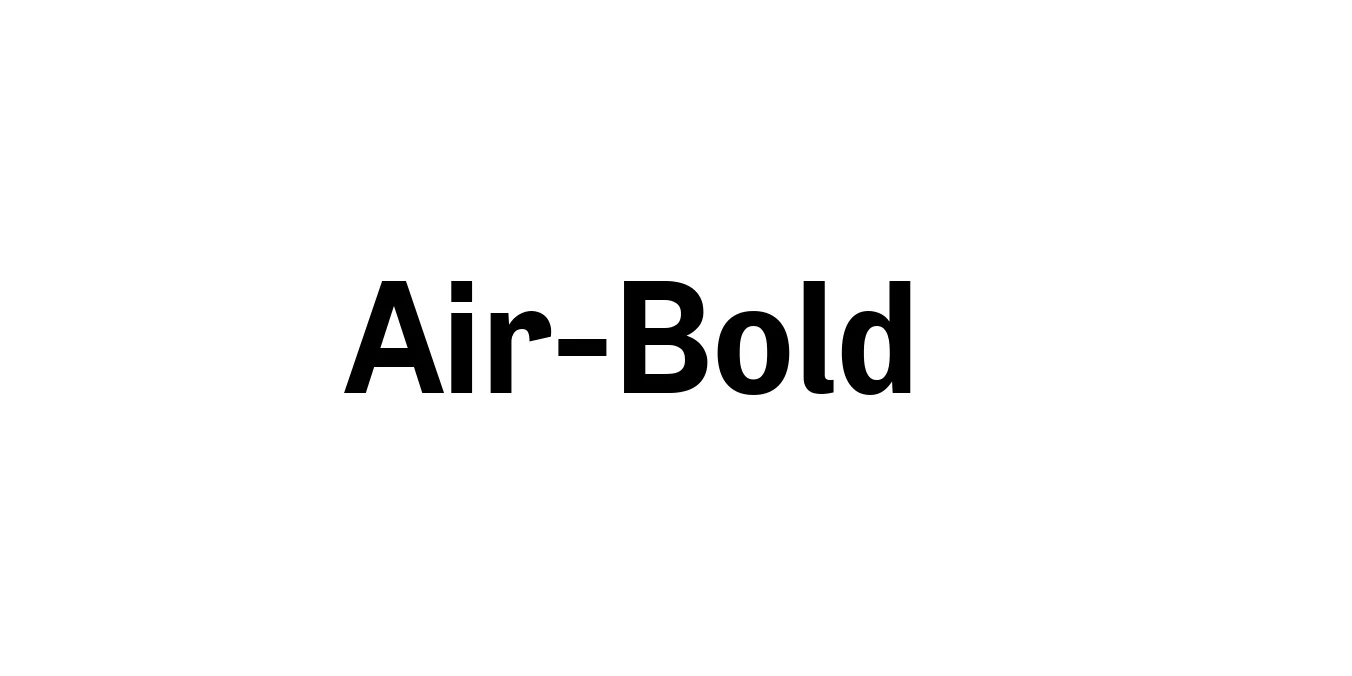
Air-Bold ☞
Designed by Neil Summerour (Positype)
Air-Bold is a masterfully crafted geometric sans-serif typeface that prioritizes clarity, balance, and modern aesthetics. Designed by Neil Summerour of Positype, this font is part of a larger family developed to provide a sophisticated alternative to traditional grotesque styles. Its bold weight emphasizes mathematical precision and clean lines, offering a high-impact visual presence that remains incredibly legible even in demanding environments.
The typeface features wide-open apertures and a generous x-height, which contributes to its friendly yet professional demeanor. By stripping away superfluous details, Air-Bold achieves a 'pure' form that excels in contemporary branding and digital interfaces. It is a versatile tool for designers who require a robust, reliable font that can bridge the gap between technical accuracy and artistic elegance.
Air-Bold ☞ Best Uses
Ideal for logotypes and brand identity systems that want to convey stability and modernity.
Excellent for bold magazine headlines and section headers that require authority.
Perfect for high-impact hero sections and navigation menus on professional websites.
Highly effective for outdoor signage and digital advertisements where readability is paramount.